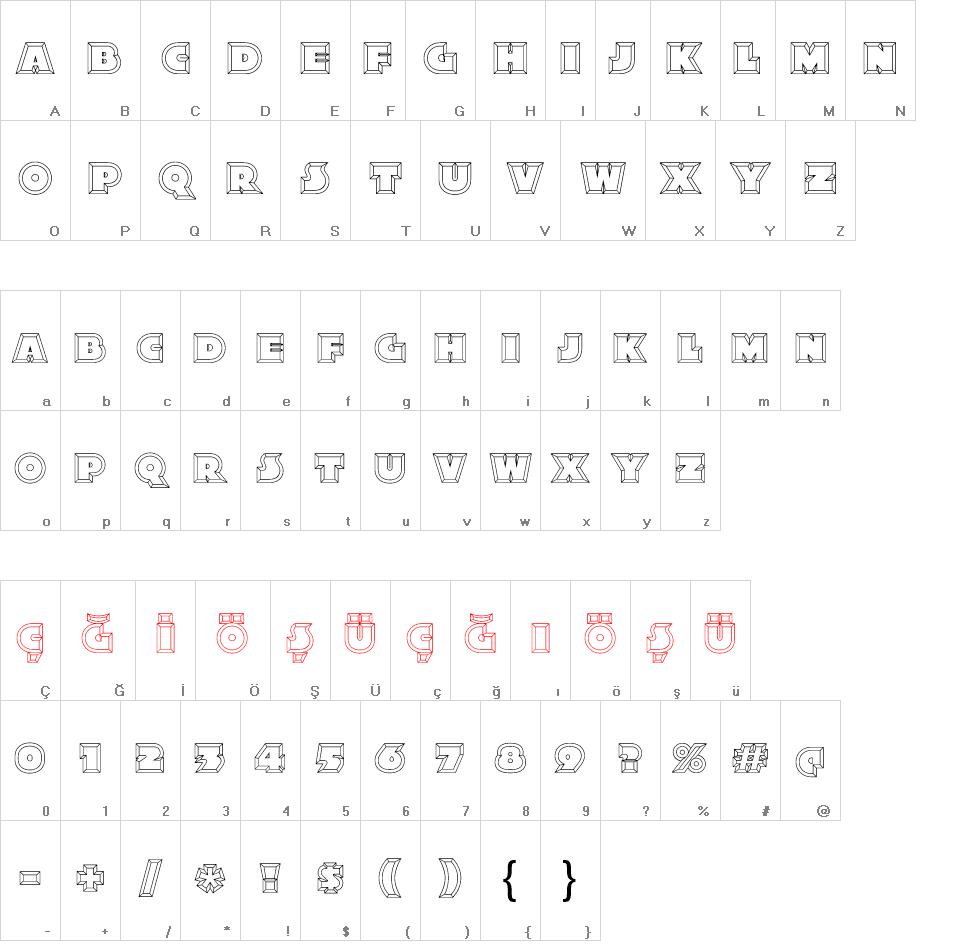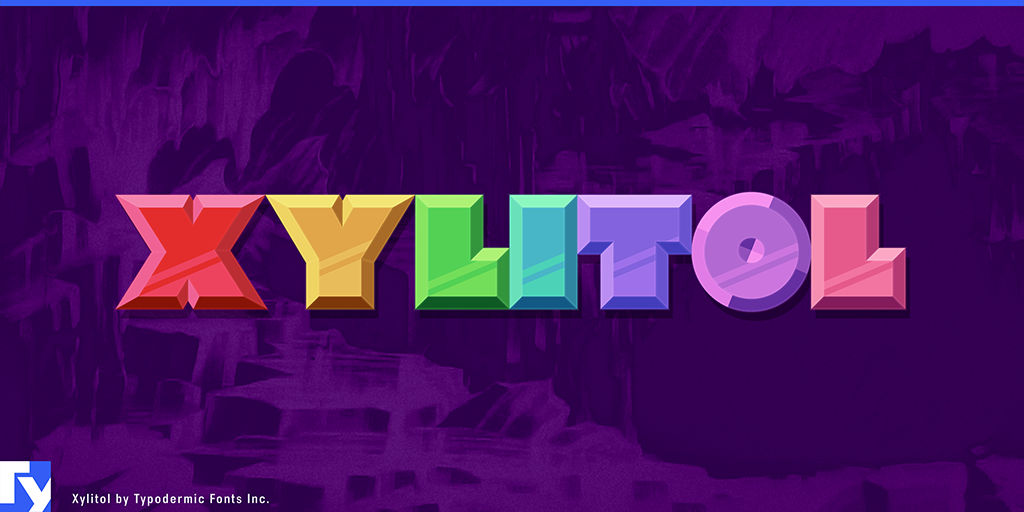
Xylitol Hollow font
Xylitol is a multiple layer typeface you can use for creating chromatic, 3D effects. It’s designed so the letters fit tightly together like Tetris blocks. There are four directional layers for the sides so you can simulate light coming from various directions. There’s a stripe layer which can be used to created a metallic shimmer effect. The Hollow style is made of thin outlines and has multiple uses. Use it on its own for a engineery, blueprint look. Make it black and overlay it on solid colors for a stained glass effect. Set it to 50% gray and use a screen or color dodge effect at around 25% opacity to create a subtle sharpening effect. The solid layer can be offset to simulate a drop shadow. The Xylitol family includes a Solo style which has more conventional spacing—handy when you need accompanying flat text. An outline style is useful on its own of for doing layer transparency tricks. Xylitol supports lot of languages including Greek and Russian.
It’s all about experimenting but here are some tips to get you started:
You’ll need to use an application that allows you to overlay layers of text. Every application has a different way of dealing with this but generally, you type what you want, make several overlapping copies of the layer then alter each layer’s color and style.
Some applications, like Photoshop ignore the font’s vertical metrics so you may need to vertically shift some of the layers to align. The diamond (lozenge) ◊ character contains a registration cross-hair to help you get things lined up.
Make sure you’re not using optical kerning in Adobe apps.
If you’re using the front layer and all the edge layers, you might think it’s unnecessary to include the back layer. But the back layer can help obscure some of the background leaking through due to layer rendering imprecision. You might not need it but it’s there if you do.
If you plan on including the Hollow style, I recommend using it as the first layer and checking carefully for unwanted overlaps before copying the layer. For example, the T may overlap A a tiny bit. That’s the way the typeface is designed—the priority is to have the edges set tight. You can fix the overlaps by adjusting tracking. It’s no fun if you add Hollow as the final layer, notice an overlap and realize that the tracking will have to be adjusted for each layer.